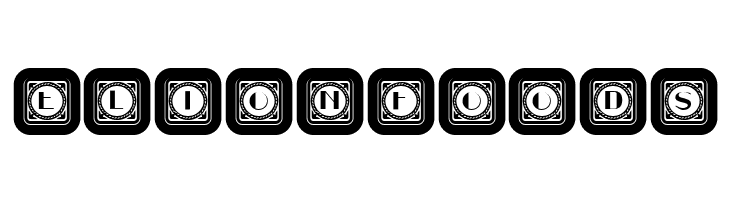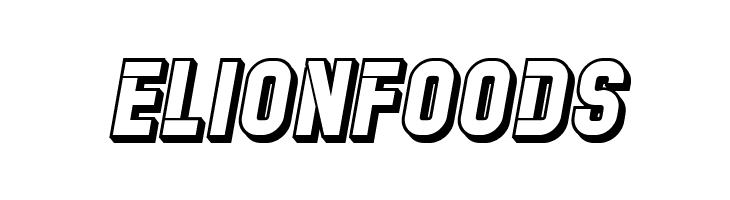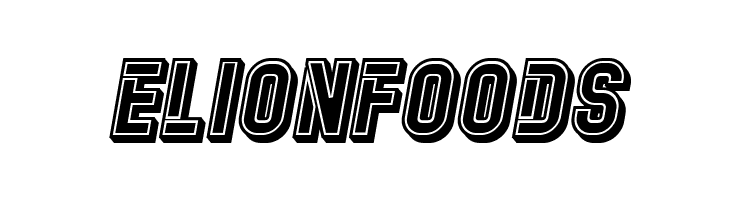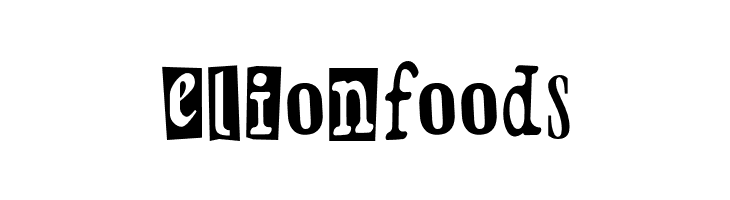
• Restaurant Menu Hollow Regular
A bold, hollow font with a three-dimensional effect, perfect for impactful designs.
• Restaurant Menu Regular
A bold, decorative font with an outlined, three-dimensional effect.
• Retailer 3D Regular
A bold, 3D decorative font with intricate line patterns and a geometric style.
• Retailer Regular
A decorative, geometric font with layered, framed characters.
• Retrive Italic
A bold, italicized font with a dynamic and modern style.
• Retrive Regular
A bold, blocky typeface ideal for impactful headlines and titles.
• Retroma Vibes Regular
( Fonts by Arterfak Project )
A playful, eclectic font with retro vibes and unique character designs.
• RetromaVibes-Regular
( Fonts by Arterfak Project )
A playful, retro-inspired font with eclectic and dynamic character designs.
• Retrosonic Regular
A bold, geometric font with a retro-futuristic style.
• Retrospective Capitals 1 Regular
A decorative, vintage-style font with bold characters enclosed in square frames.